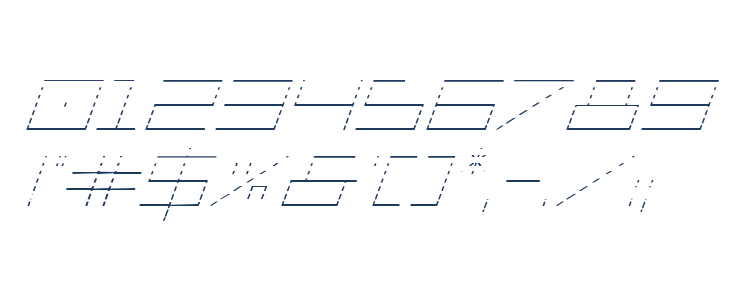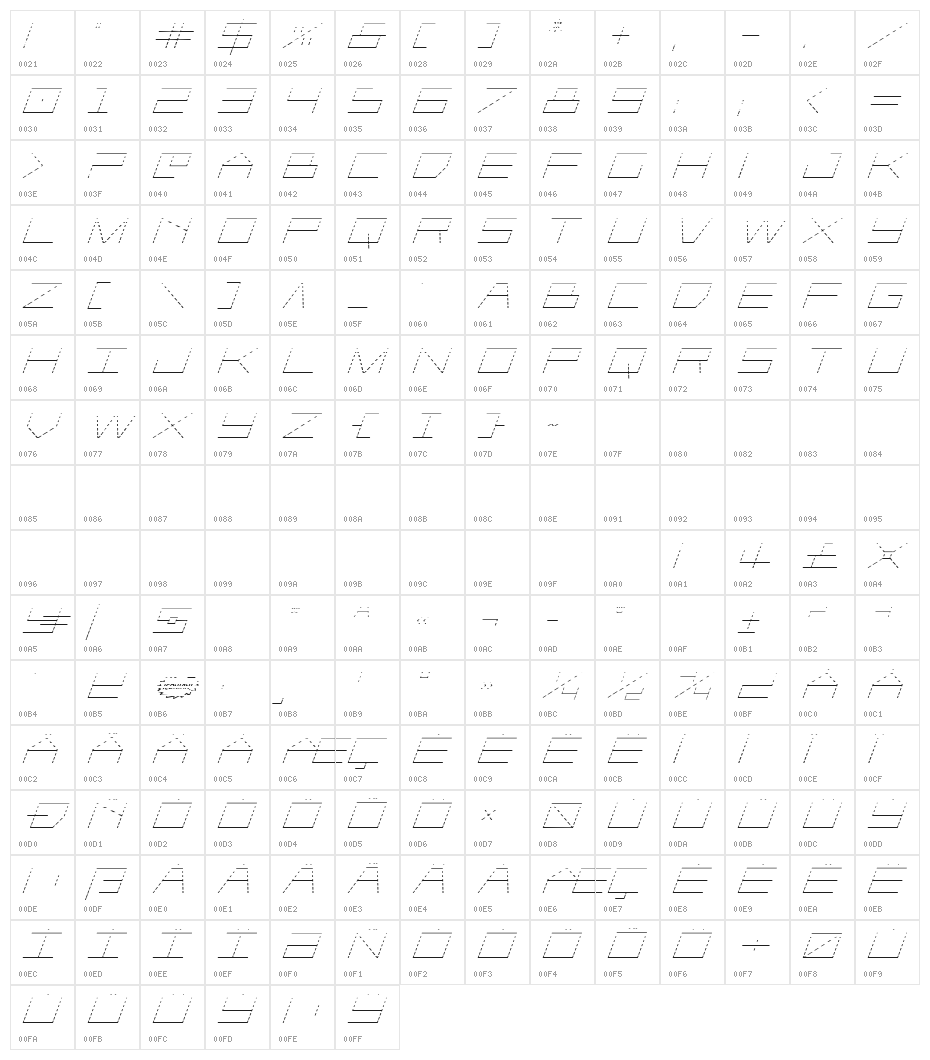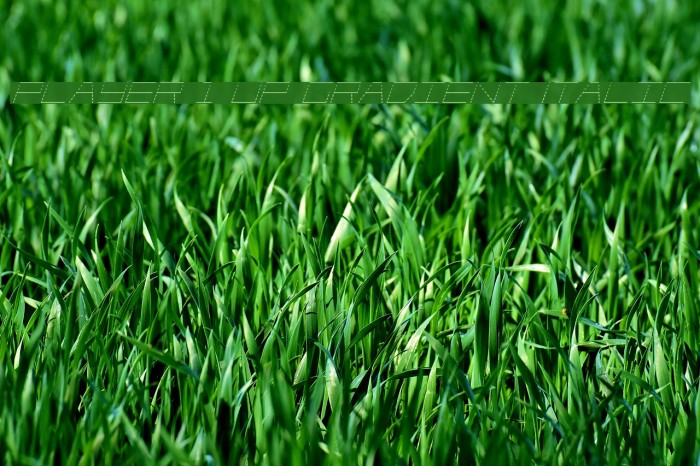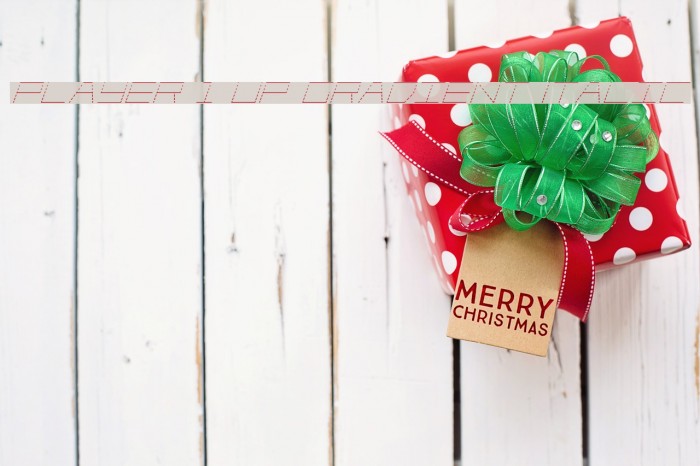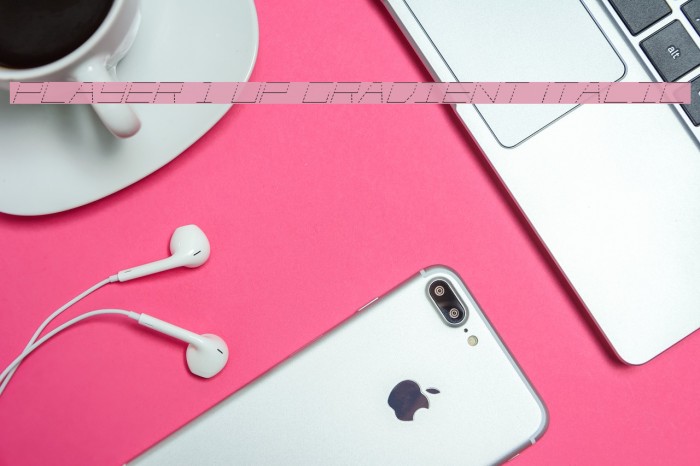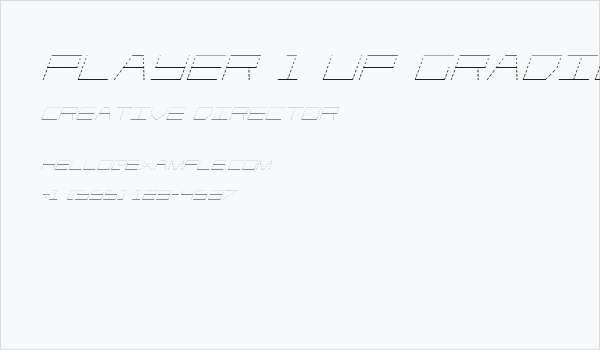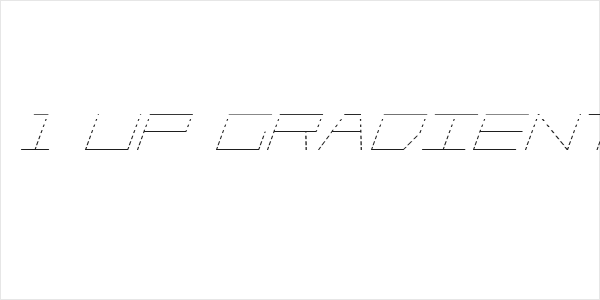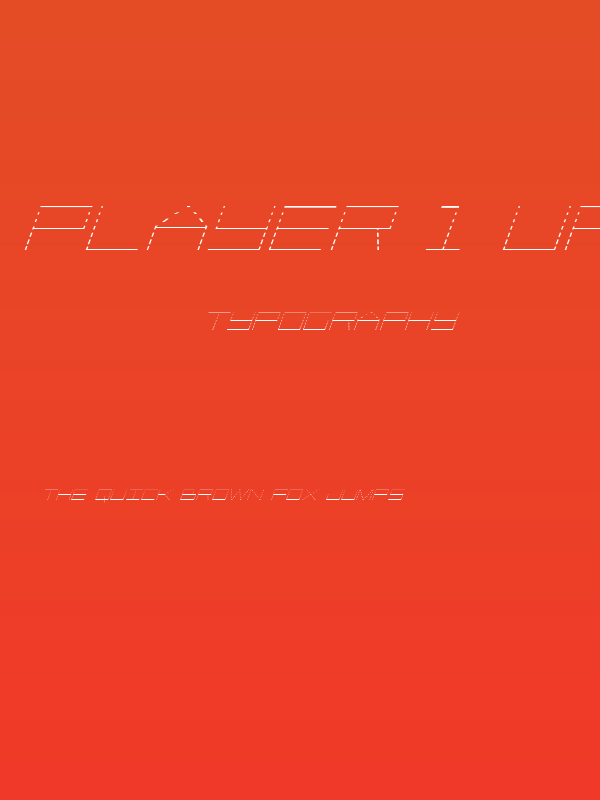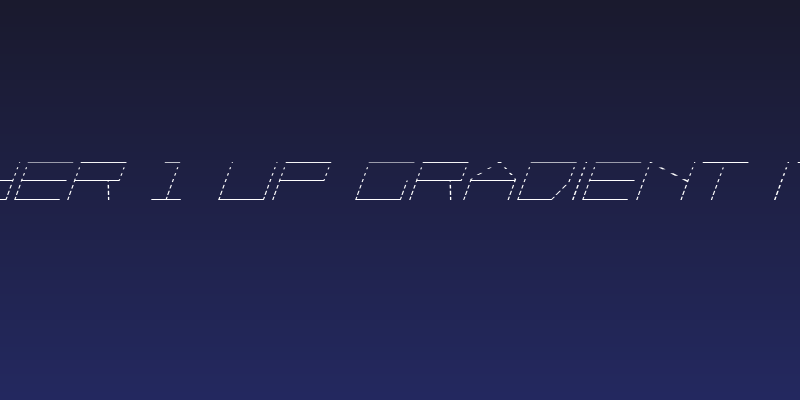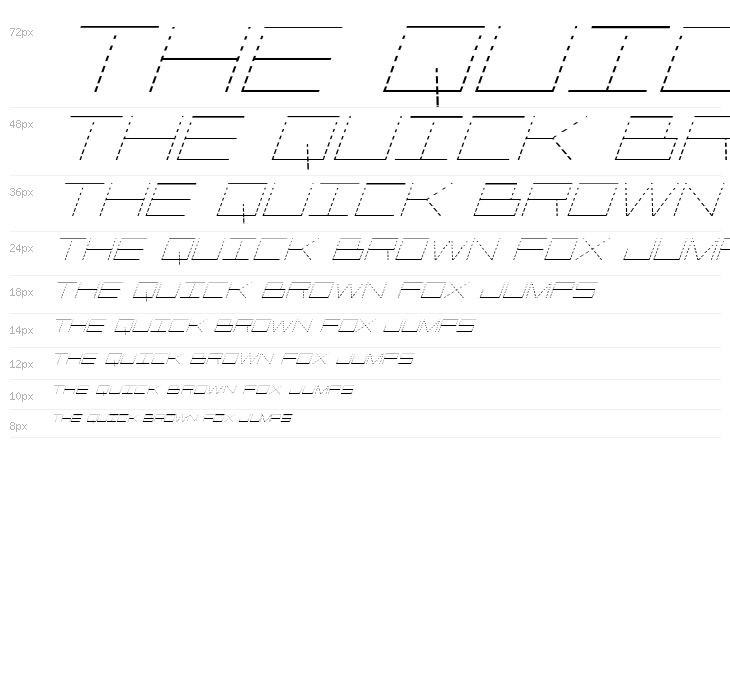
Player 1 Up Gradient Italic Font
Player 1 Up Gradient Italic Description
This font features a futuristic and digital aesthetic, characterized by its italicized and gradient-like appearance. The characters are constructed with a series of diagonal lines and angles, giving them a dynamic and energetic feel. The uppercase and lowercase letters maintain a consistent style, with sharp edges and a sense of motion. Numbers and special characters follow the same design principles, ensuring a cohesive look across all glyphs. The font's unique style makes it suitable for projects that require a modern and tech-savvy appearance.
| Proposed Projects | Ideal for video game titles, tech branding, digital art projects, and sci-fi themed designs. |